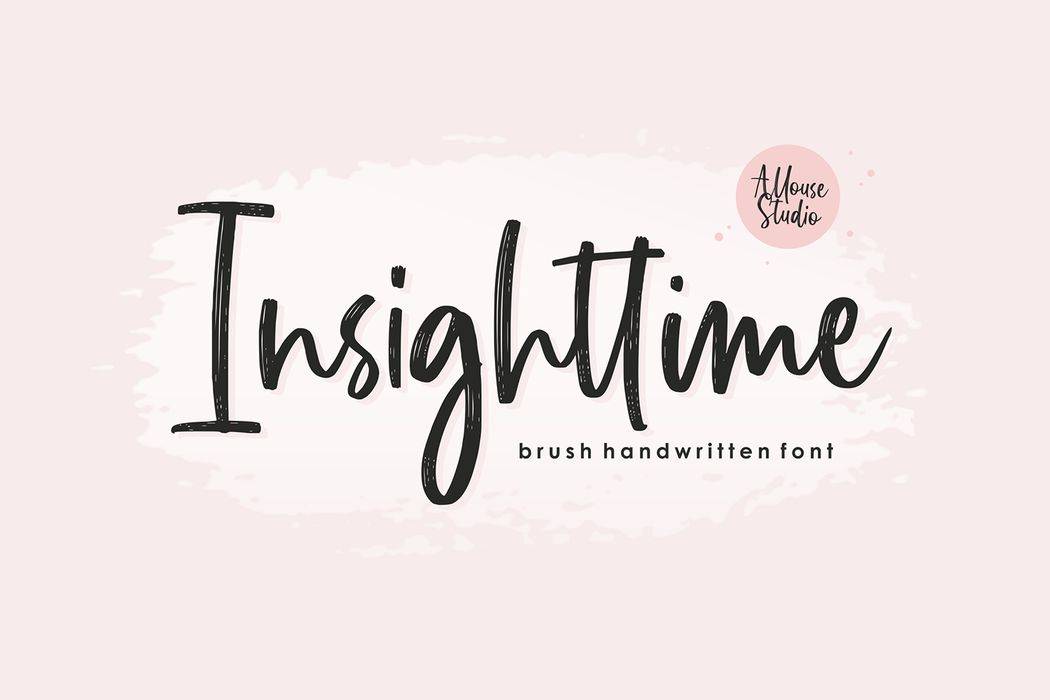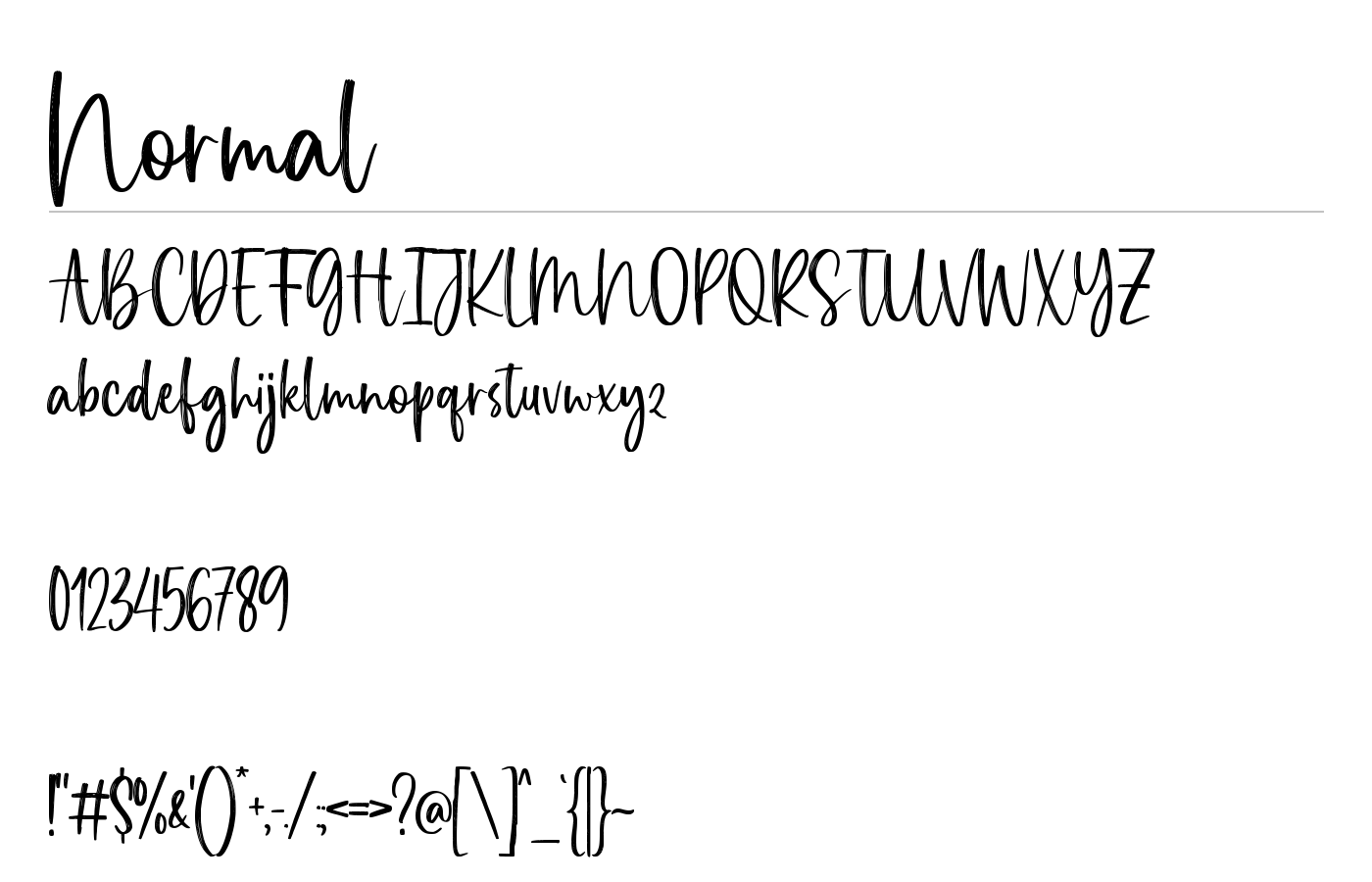
Insighttime is a playful and casual handwritten script font featuring tall, narrow letterforms with a lively and spontaneous feel. Its irregular strokes and slightly rough texture give it a personal, authentic touch, making it well suited for creative projects, informal branding, and expressive headlines where a friendly, approachable vibe is desired.
Insighttime Font
About Insighttime Font